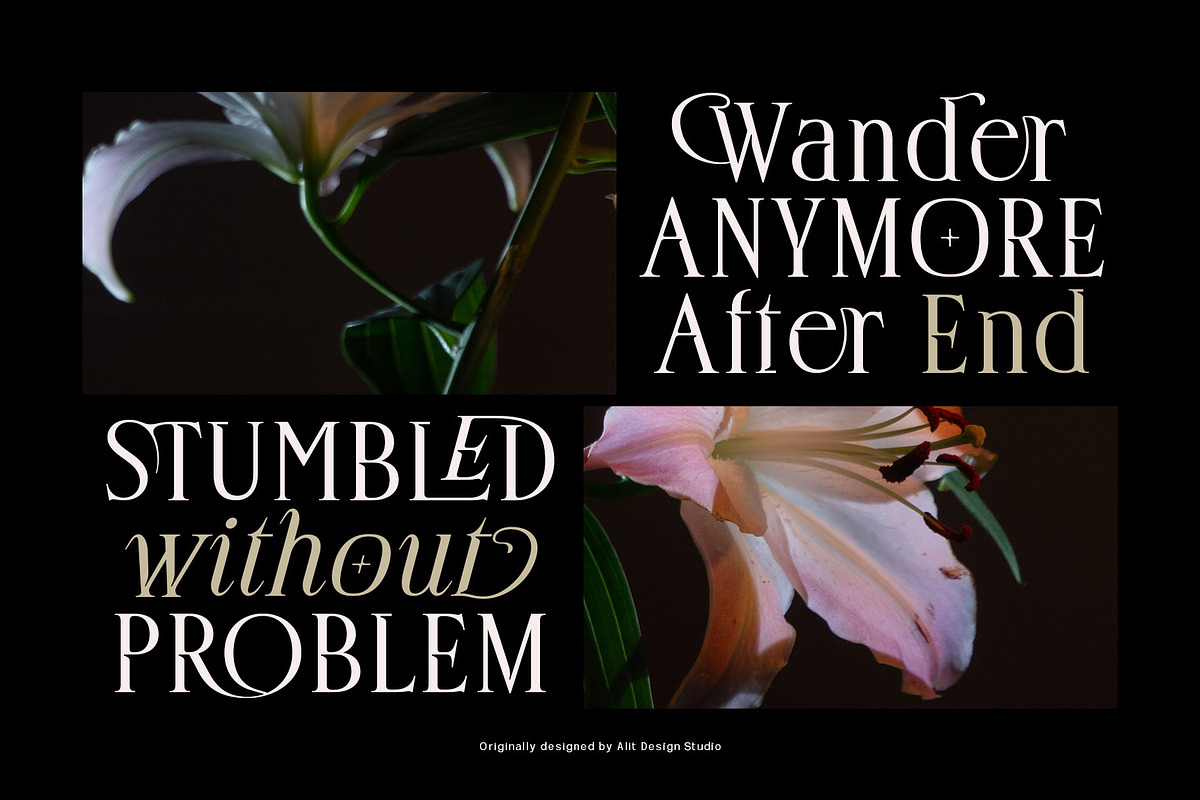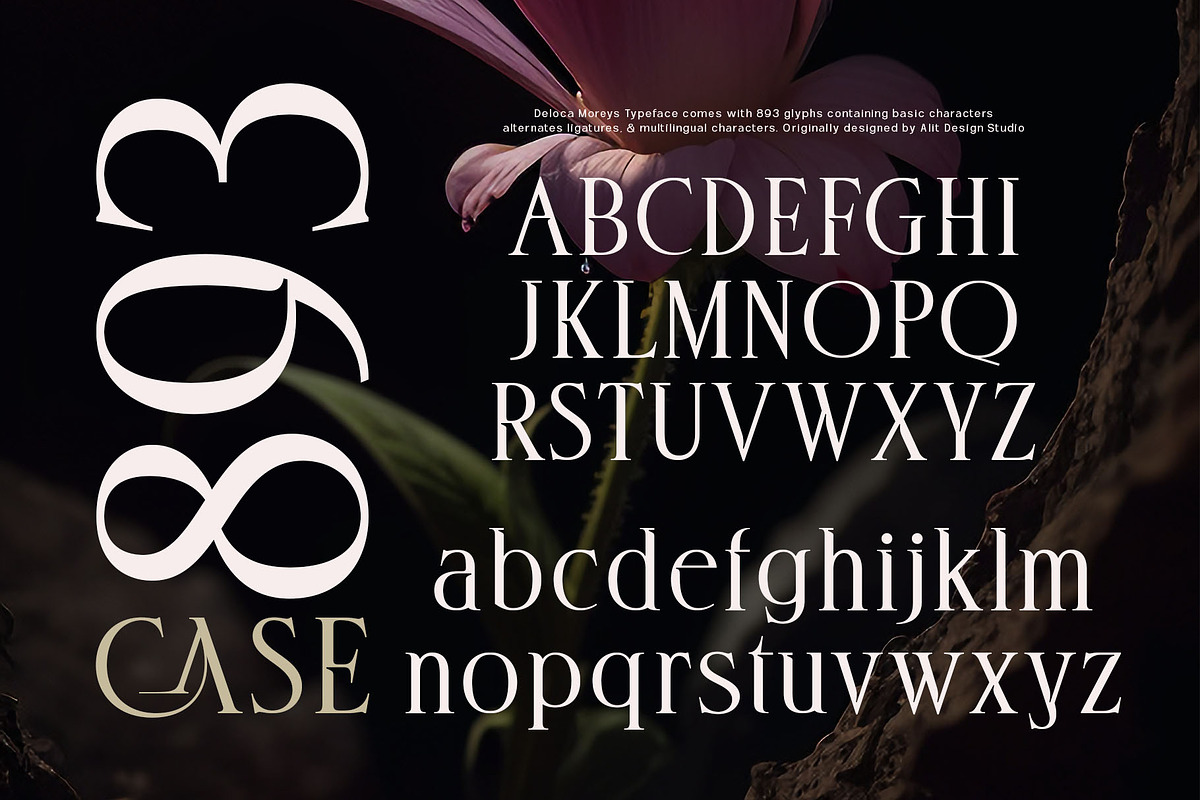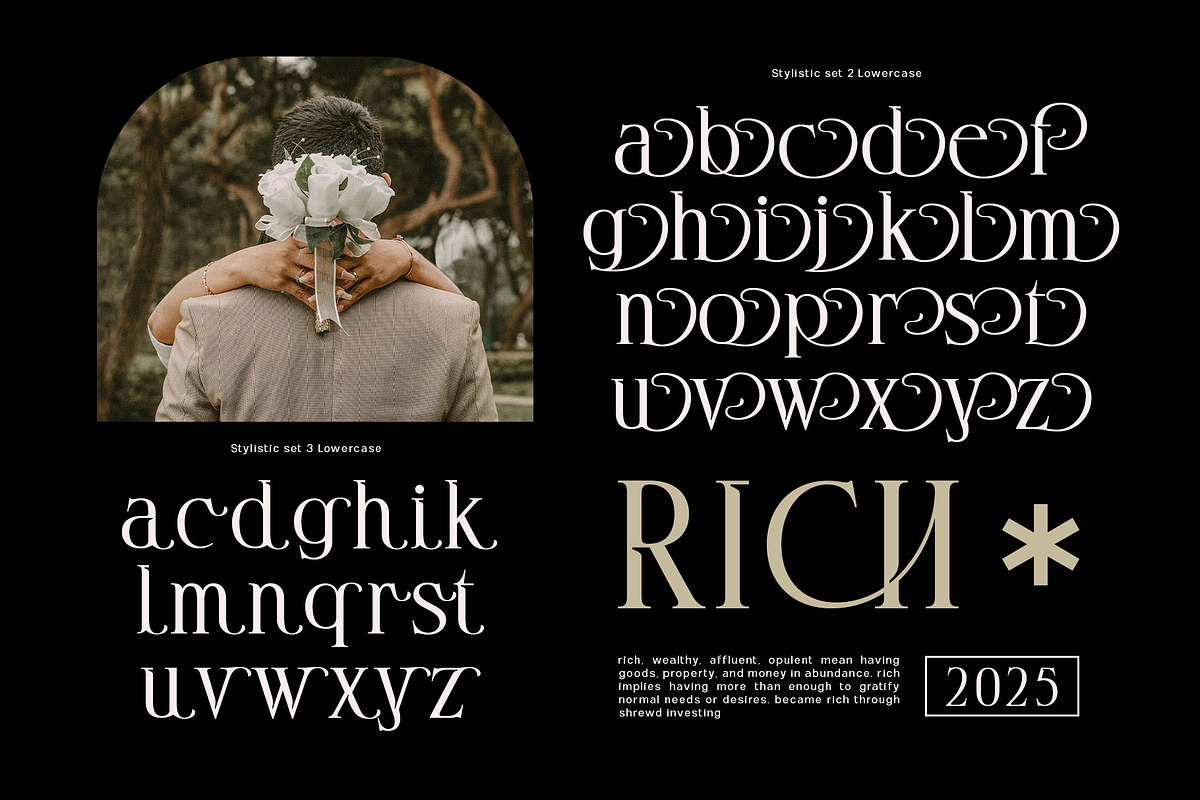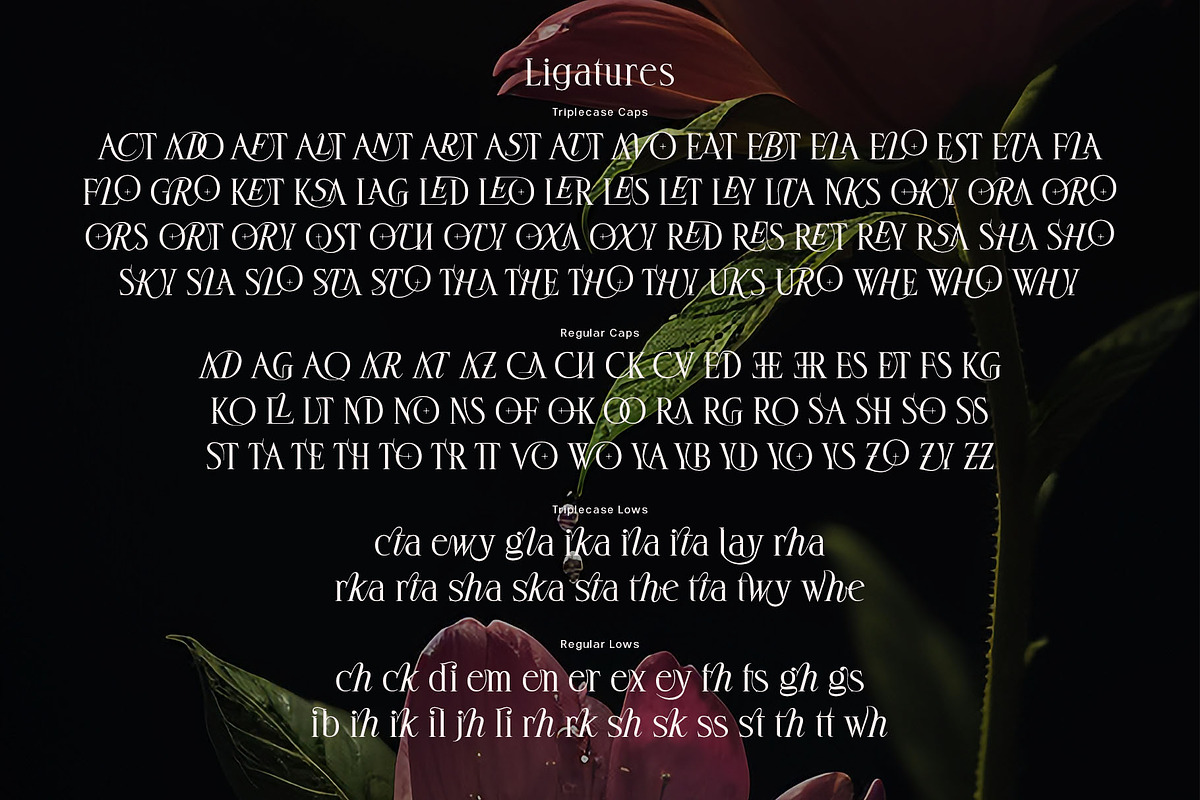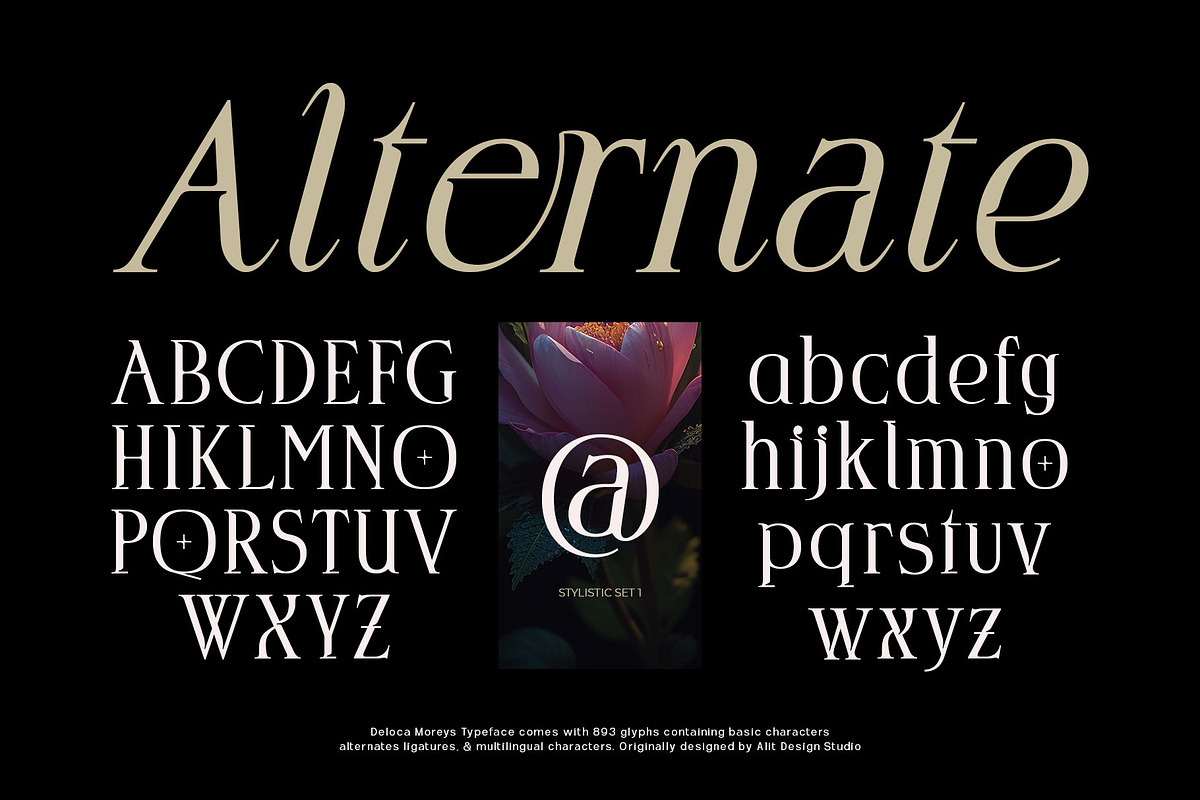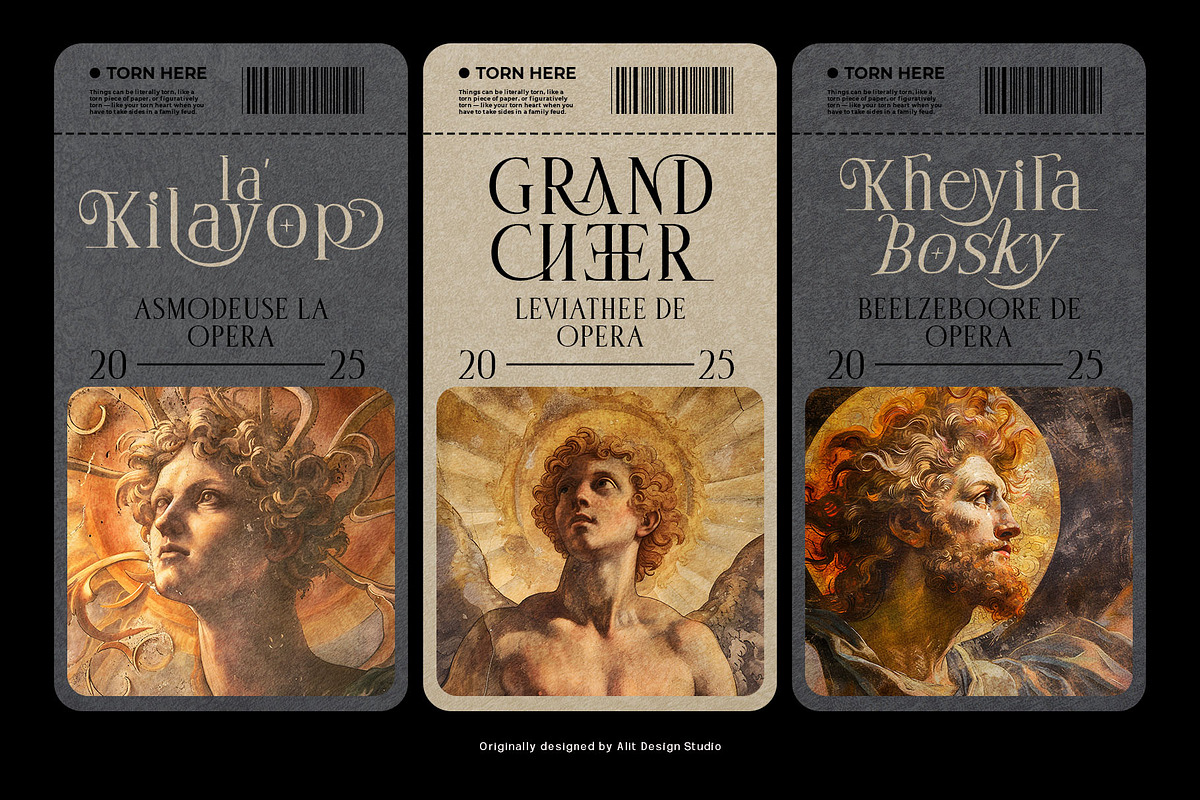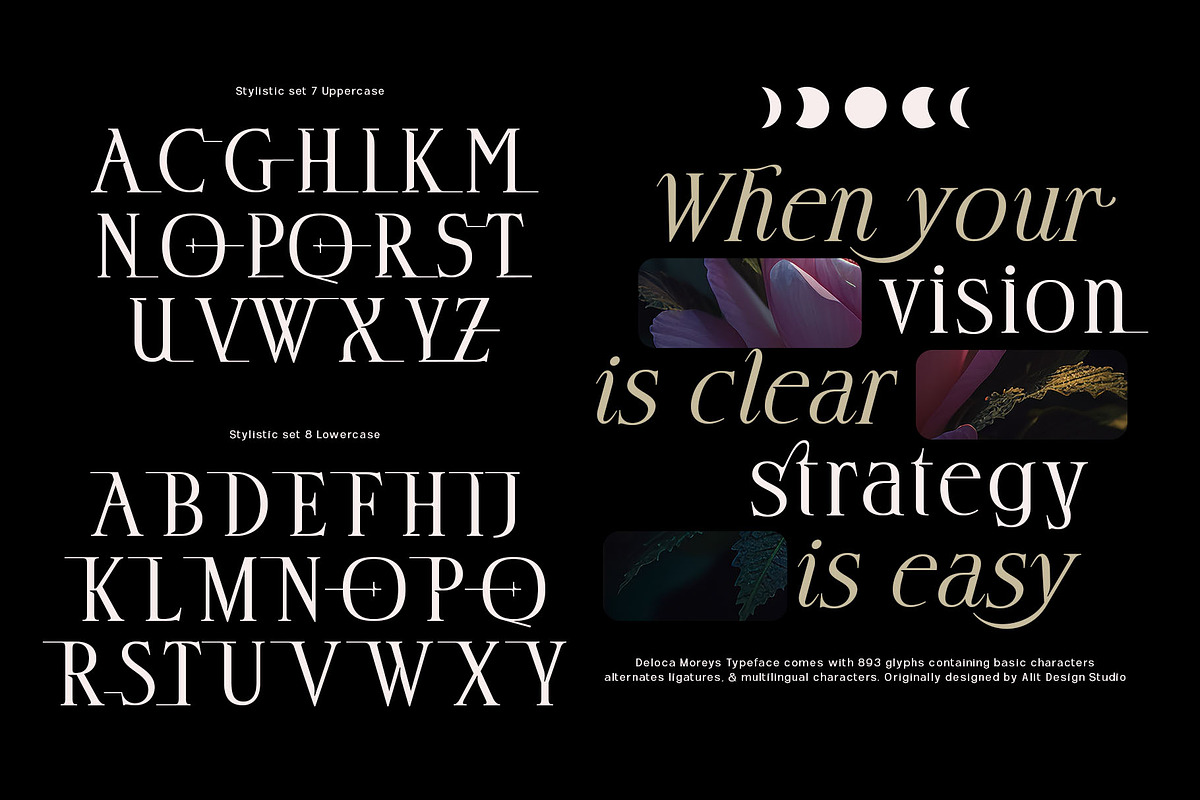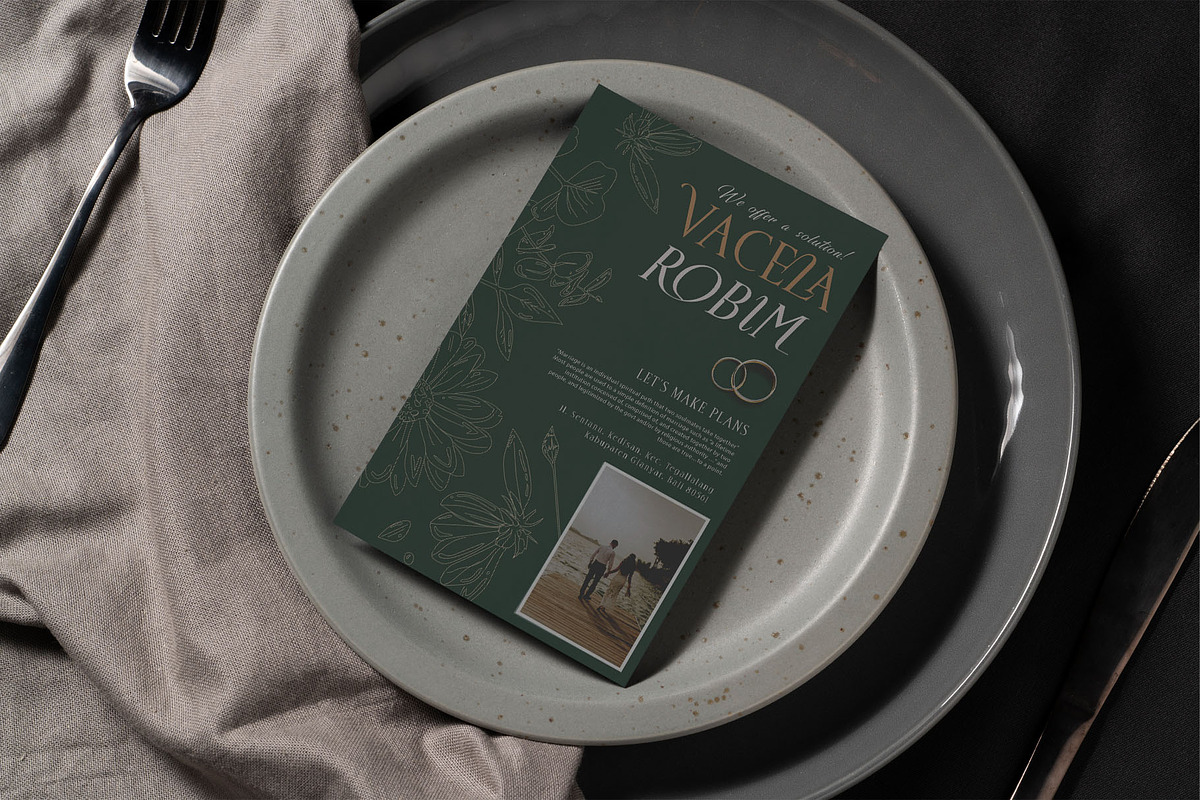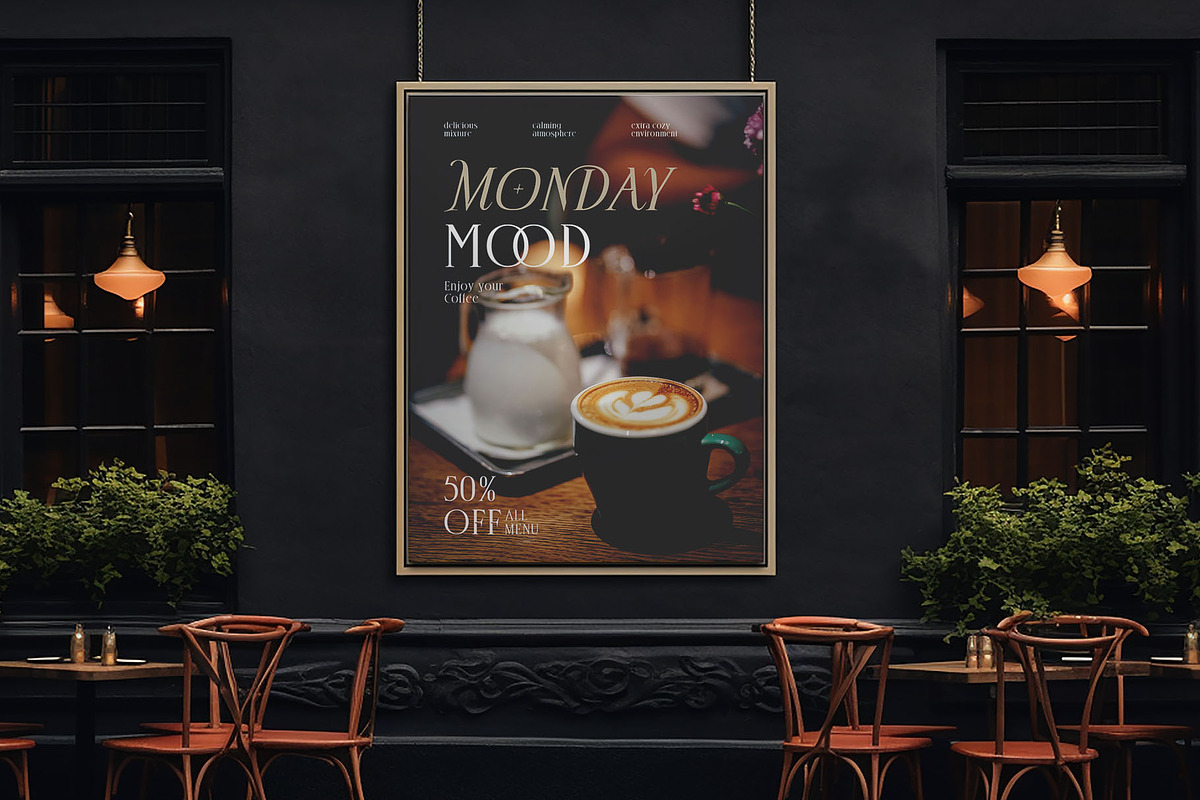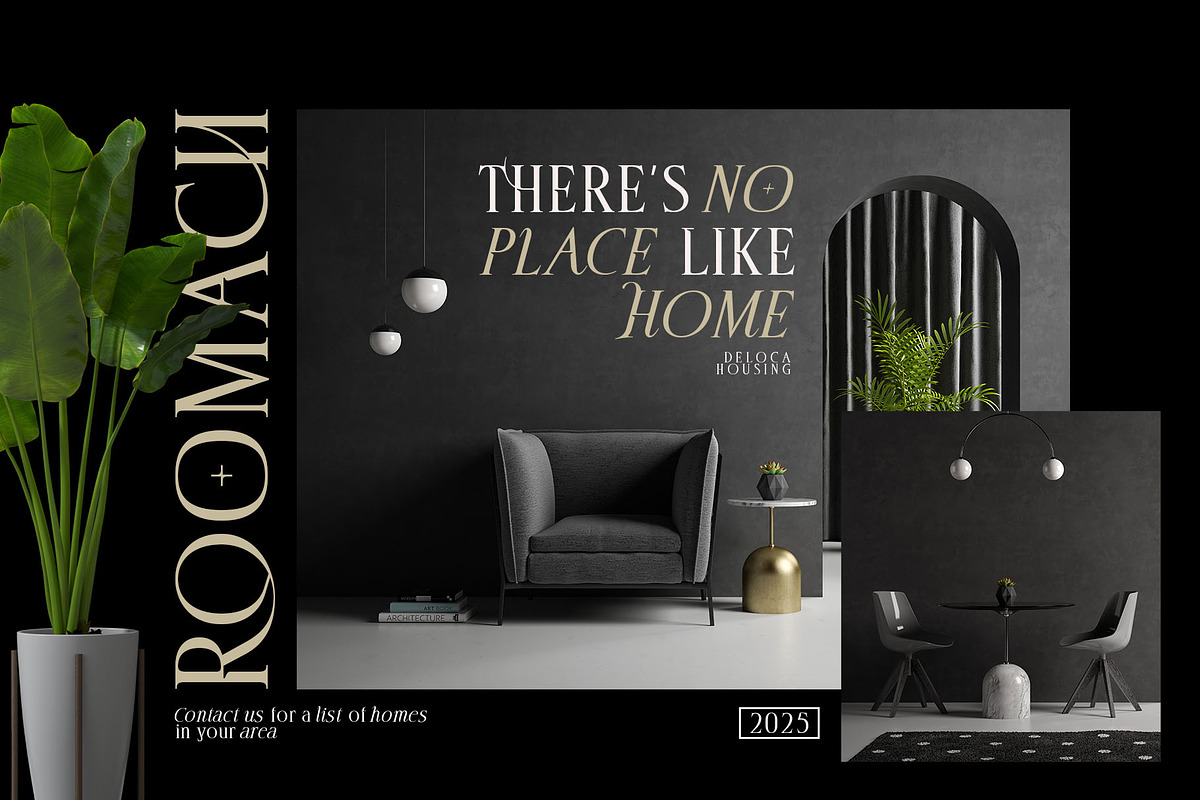
Deloca Moreys Typeface
Deloca Moreys is a sophisticated and feature-packed serif typeface, meticulously crafted for designers who demand elegance, versatility, and creative freedom in their projects. Created by Alit Design Studio, this font blends timeless serif elements with modern twists, making it the perfect choice for high-end, editorial, and artistic designs.
Key Features and Highlights
1. Elegant Serif Design
Deloca Moreys boasts sharp, elongated serifs balanced by smooth curves and refined letterforms. Its intricate details and dynamic flow make it ideal for creating luxurious and eye-catching designs.
2. Glyph-Rich Variety
This typeface is equipped with 893 glyphs, offering a wide range of characters to unlock boundless design opportunities. These include:
- Basic Latin Characters: Covering uppercase and lowercase letters, numerals, and essential punctuation.
- Extended Glyph Set: Supports international languages with diacritics and symbols for global versatility.
3. Alternates and Ligatures
Deloca Moreys elevates typographic expression with alternate characters and creative ligatures, allowing users to add variety and uniqueness to their designs. These are particularly useful for:
- Crafting bespoke logos.
- Designing standout headers and titles.
- Enhancing body text with artistic flair.
4. Multilingual Support
The font comes with extensive language support, making it suitable for diverse linguistic markets. Whether your project involves Latin-based languages or accents, Deloca Moreys ensures flawless adaptability.
5. Aesthetic Flexibility
- Uppercase Letters: Strong, bold, and stately, ideal for commanding attention in titles and headlines.
- Lowercase Letters: Sleek and stylish, offering balance for body text or subtler elements in designs.
- Italic Styling: For added dynamism, the italicized versions bring a soft, flowing elegance to the font family.
Why Choose Deloca Moreys?
Design Versatility
The font’s classic-meets-modern aesthetic is perfectly suited for a wide range of creative uses:
- Luxury Branding: Convey opulence and refinement for upscale products or services.
- Editorial & Magazine Layouts: Ideal for crafting engaging headlines and polished typography.
- Social Media & Marketing Materials: Create professional and stylish posts, banners, and campaigns.
- Wedding Stationery: Add a romantic touch with its timeless beauty.
- Product Packaging: Elevate high-end goods with premium typography.
Sophistication at Every Scale
Deloca Moreys excels in both large-scale and small-scale applications, maintaining clarity and elegance whether used for billboards or smaller collateral like business cards.
Perfect for Designers Who Value Timeless Elegance
Deloca Moreys empowers designers to create bold yet graceful statements in their work. From fashion editorials to artisanal branding, this typeface will captivate your audience with its sophisticated details and artistic charm.